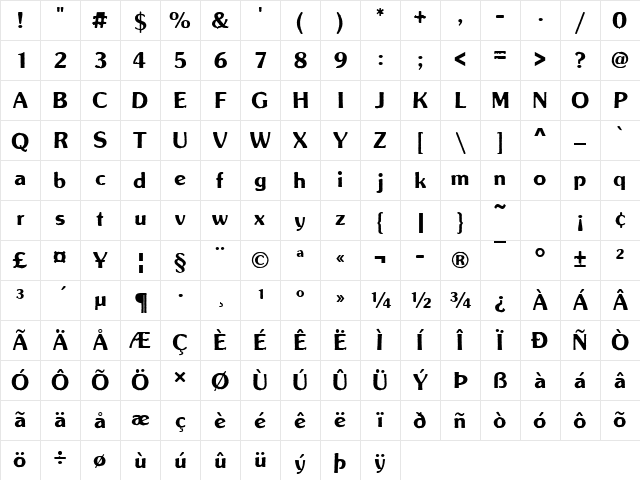
Complete Souvenir Gothic Becker Ant Demi Regular glyph index. Displaying only characters natively supported by Souvenir Gothic Becker Ant Demi Regular font.
Souvenir Gothic Becker Ant Demi takes a clean, functional approach - its unadorned letterforms prioritise legibility and work reliably across screen and print environments.
Font Pairing: Works well alongside a characterful serif or display font that can carry the expressive load while Souvenir Gothic Becker Ant Demi handles the functional copy.
Pro Tip: Use Souvenir Gothic Becker Ant Demi for UI labels, navigation, and short-form body copy where clean legibility is the priority.